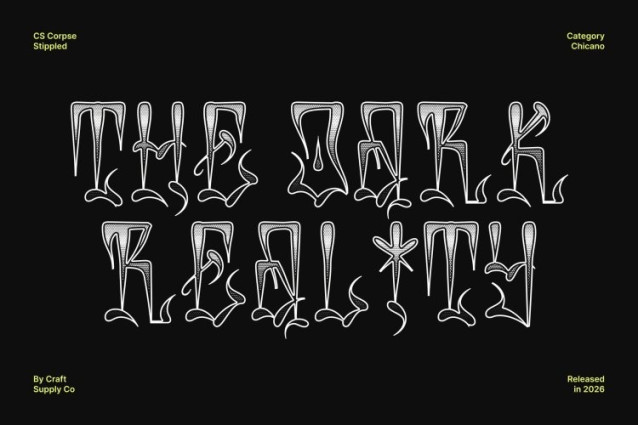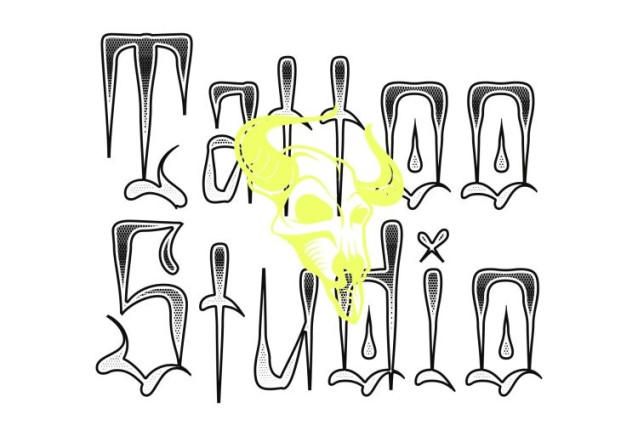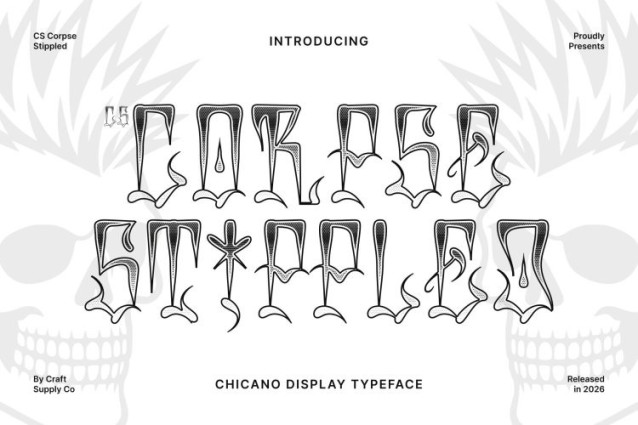
CS Corpse Stippled Font
CS Corpse Stippled Font – This is a striking Chicano graffiti display font that captures the expressive spirit of street art and urban lettering culture. Its bold, flowing letterforms feature thick strokes, dramatic curves, and energetic shapes that embody creativity and individuality. Inspired by hand-painted murals and graffiti scripts, the font delivers a strong visual presence that feels authentic, vibrant, and full of character.
Dynamic Letterforms with Stippled Texture
The expressive shapes of this font are enhanced with a stippled texture that introduces a subtle dotted surface inspired by traditional stippling techniques. This texture adds visual depth and a handcrafted feel, echoing the layered look of spray paint and textured street surfaces. The result is typography that feels lively, artistic, and visually rich.
Urban Character with Cultural Influence
Rooted in the visual language of Chicano graffiti art, this font reflects the expressive traditions of urban calligraphy and mural lettering. Its fluid strokes and bold rhythm create a sense of motion and attitude, making the font ideal for designs that embrace street culture, artistic freedom, and expressive identity.
Perfect for Street-Inspired and Creative Projects
This font works beautifully for music posters, event flyers, apparel graphics, album covers, and urban branding. Its combination of graffiti-inspired forms and textured detailing ensures designs stand out with a bold, rebellious, and energetic typographic voice.